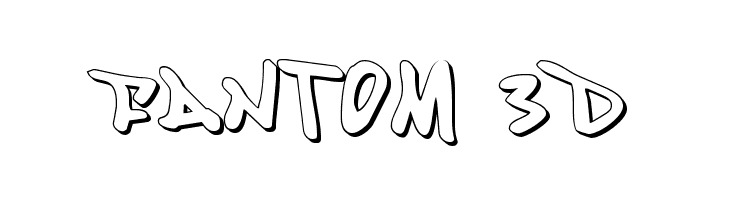
• Fantom 3D caratteri
A bold, 3D graffiti-style font with playful, dynamic outlines.
• Fantom 3D Italic caratteri
A bold, 3D italic font with a playful and modern style.
• Fantom Bold caratteri
A bold, graffiti-inspired font with expressive, hand-drawn strokes.
• Fantom Bold Italic caratteri
A bold, italic script font with dynamic, flowing strokes.
• Fantom Condensed caratteri
A bold, brush-style font with a condensed and dynamic appearance.
• Fantom Condensed Italic caratteri
A bold, condensed, and italic handwritten font with dynamic strokes.
• Fantom Expanded caratteri
A bold, expressive handwritten font with dynamic strokes and artistic flair.
• Fantom Expanded Italic caratteri
A bold, expanded script font with an italic slant and dynamic style.
• Fantom Italic caratteri
A bold, italicized font with a brush-like, handwritten style.